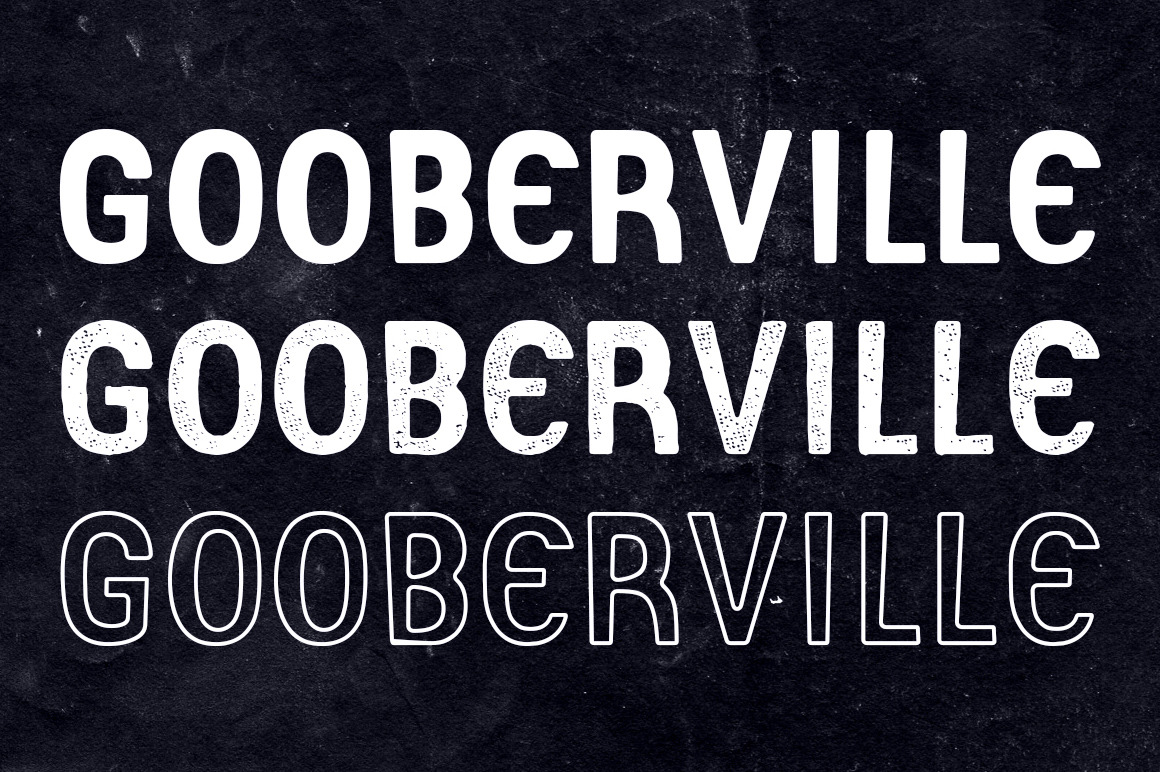
Gooberville Typeface
A quirky sans-serif display font, Gooberville echoes mid-century American postcards, with hints of circus sideshow flair.
Gooberville comes with nearly 400 glyphs, in three styles: Solid, Rough, and Outline. Multilingual support for all European languages.